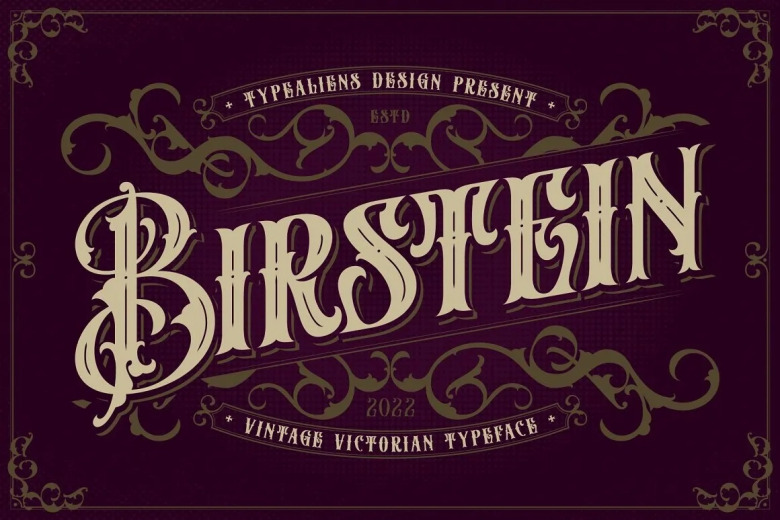
Birstein Font
Birstein Font is an elegant blackletter font with a font inspired by a chorus from the Victorian era. Ideal for original vintage designs, branding, liquor labels or brands.
Birstein Blackletter Font